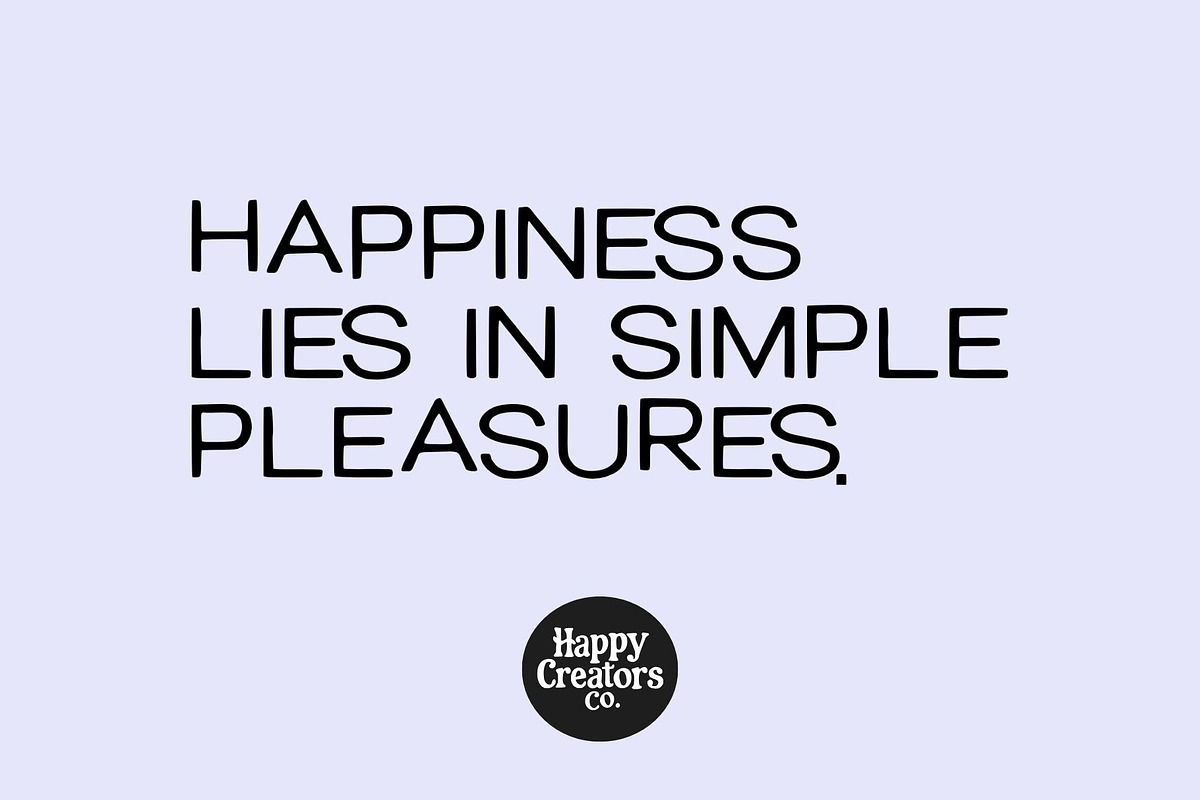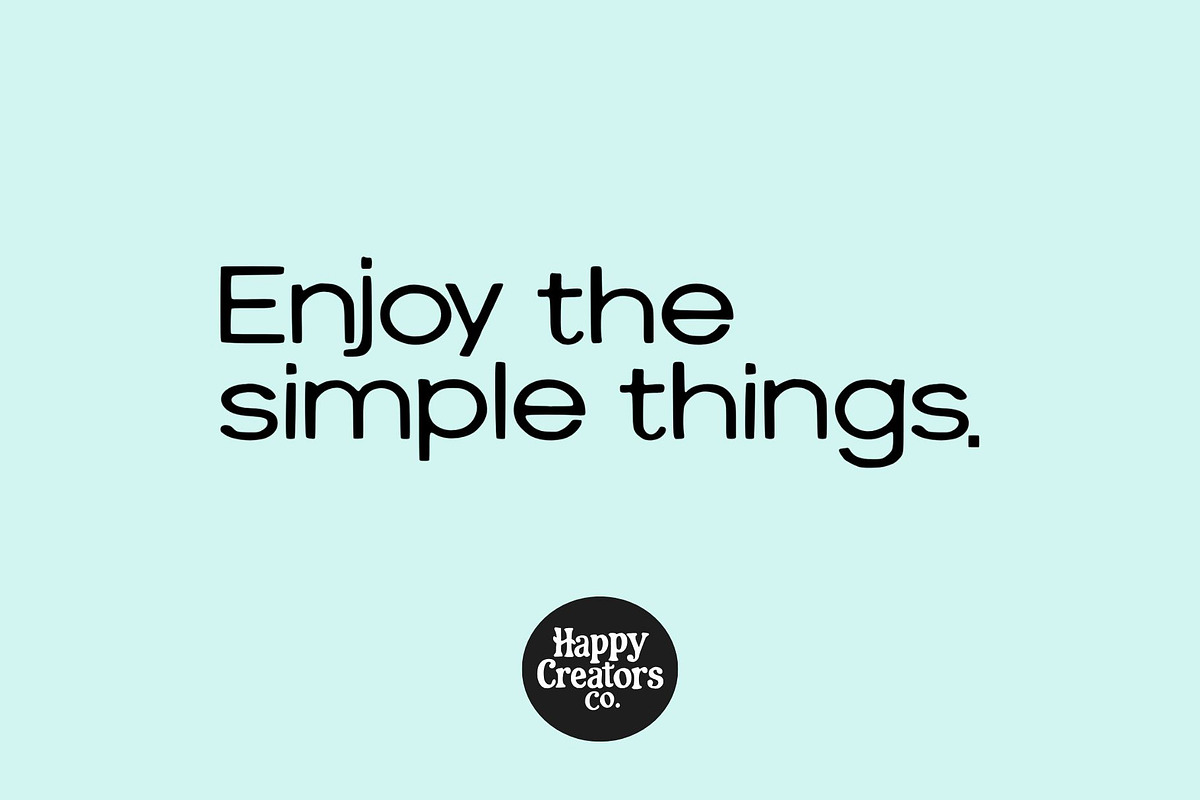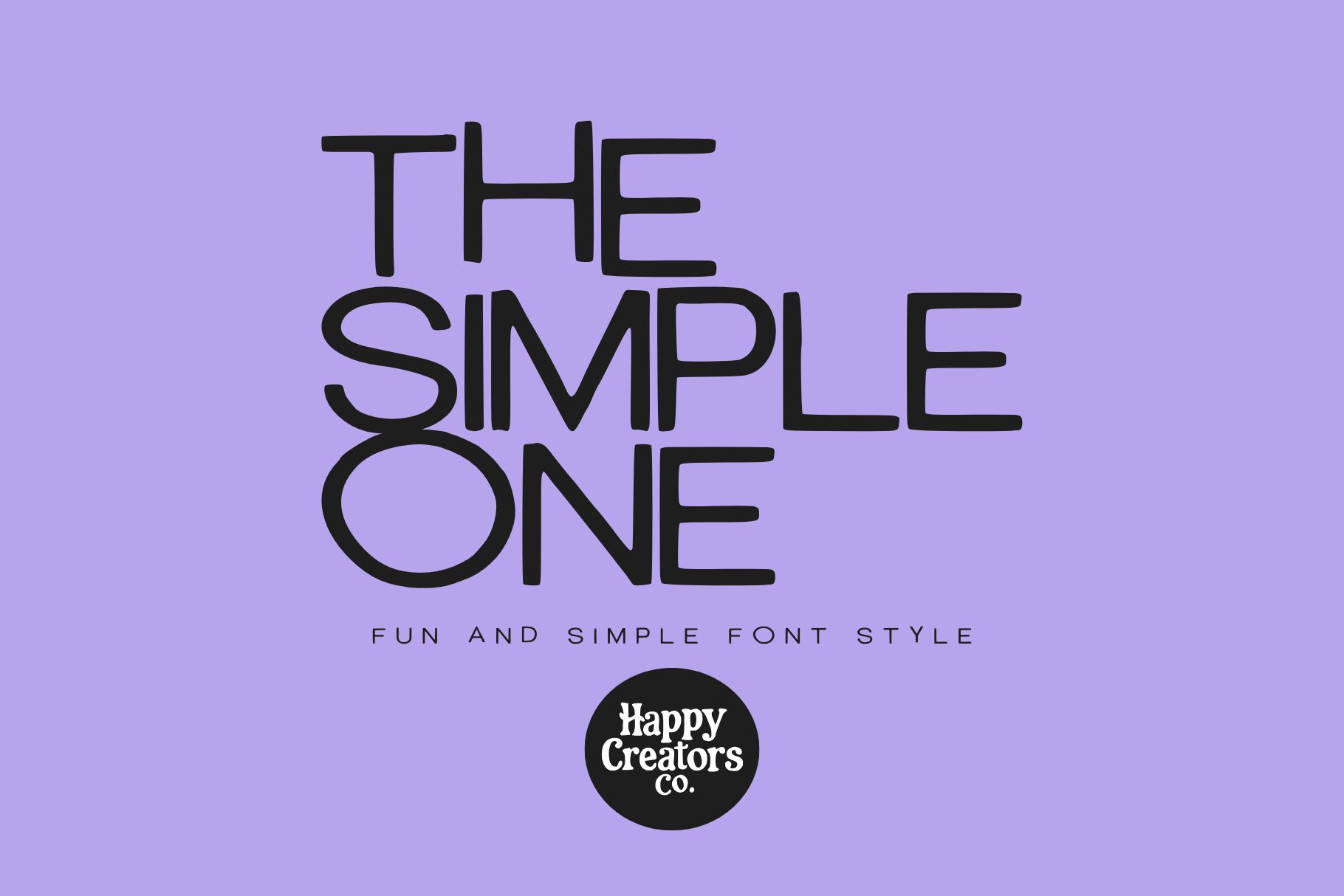
The Simple One Font
The Simple One is a playful and easy-to-use font that adds a touch of fun to any design project. With its clean simple lines and straightforward style, this font is perfect for a wide range of applications, from branding and social media graphics to posters and invitations. The Simple One brings a sense of joy and approachability to your work, making it ideal for both professional and personal projects.